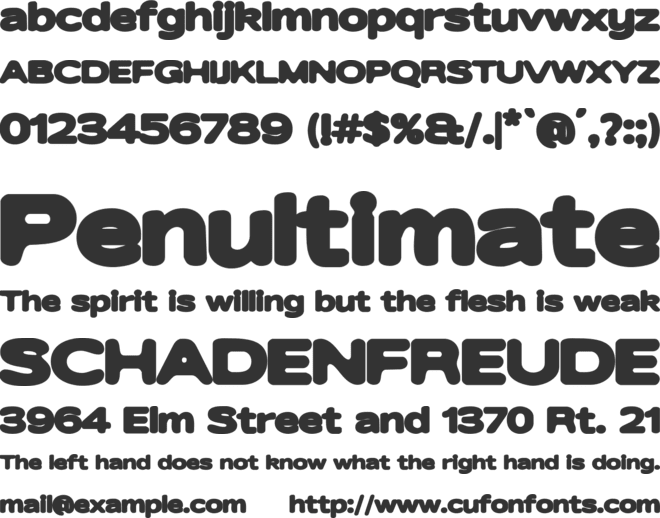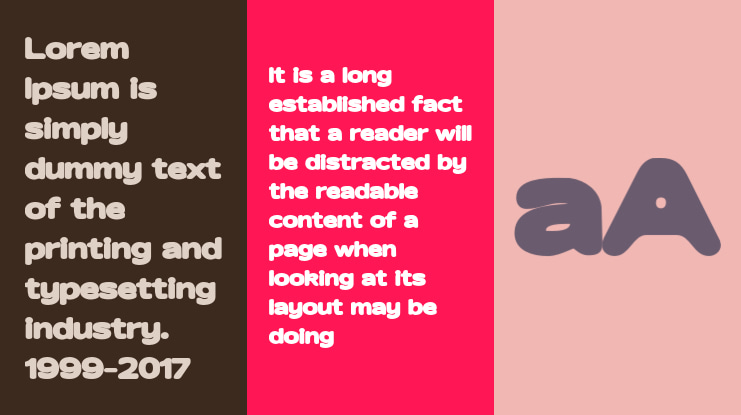
Goodhers Hooney is a wide sans serif display typeface with thick,
rounded, slightly blurry letterforms that create a bold yet friendly
visual impact. Its expanded proportions and smooth curves
deliver a confident, retro-pop presence inspired by 70s–90s
aesthetics with a modern twist. Perfect for headlines, posters,
branding, music covers, packaging, fashion campaigns, and
statement logos that demand attention while staying stylish and
approachable.